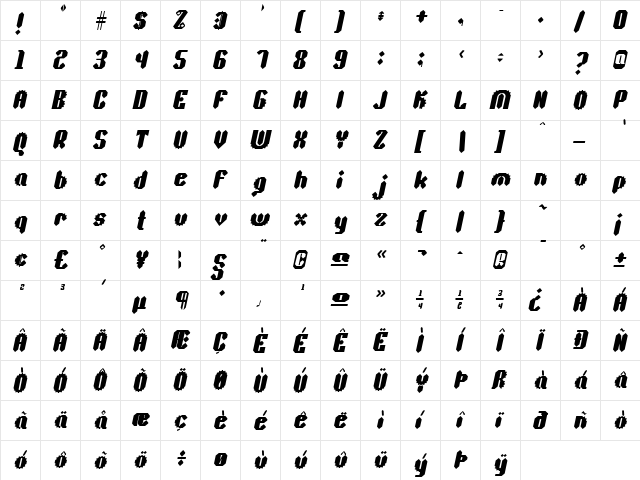
Sprokett Outerkog Italic Regular
Design Context for Sprokett Outerkog Italic Typeface
Sprokett Outerkog Italic is a composed and adaptable typeface that performs quietly and consistently across a wide range of design contexts. The slanted form adds forward momentum and visual energy.